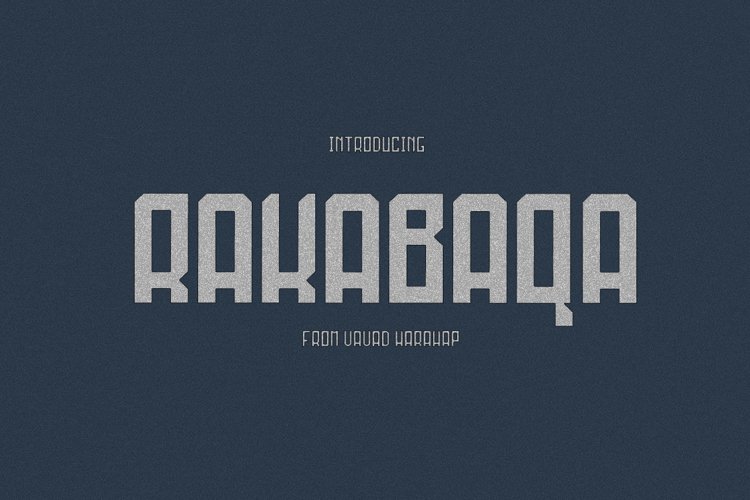
It is proud to present our latest product 'RAKABAQA'. This beautiful font will be very suitable to be included in your design with Serif style. This font is great for product logos, wedding card, clothing brand, Vintage designs, and more.